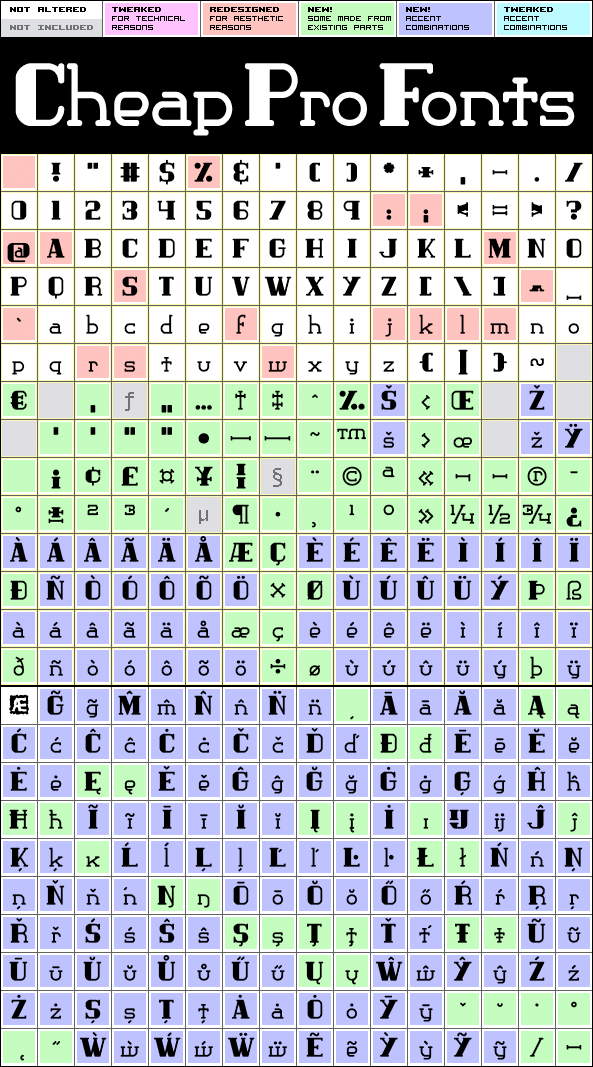
Classic Trash BRK Pro
Classic Trash BRK Pro by Brian Kent
Brian Kent
374 glyphs!
(97 in original)
261 class kernpairs
= 13226 kerning pairs
(1451 in original)
A typical Art Deco font with high contrast. I have mirrored the uppercase A and M to give the strokes a correct direction, and shortened/widened a few lowercase letters to give the text a more even colour. A stylistic 30s-looking font is ready for international text-setting!
Classic Trash BRK Pro is a professionally reworked font that contains an extended character set for setting text in 65 languages requiring more than the basic A-Z!